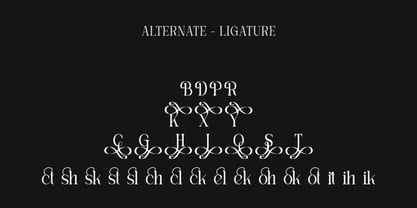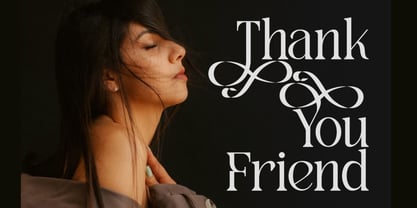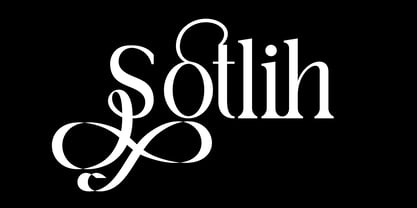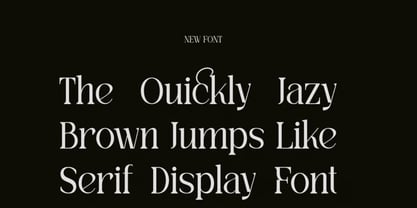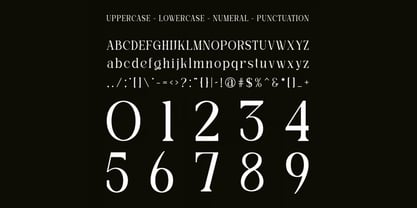
Sotlih
Die Schriftfamilie Sotlih wurde von Hasnat Khan entworfen und von Hasnat Studio veröffentlicht. Sotlih enthält 1 Stile. Mehr über diese Familie
Sotlih is a unique and versatile display font designed to make your typography stand out and communicate your message with confidence. Its distinctive character gives creative projects a strong visual presence, making it an excellent choice for designers looking for an eye-catching font for display typography, branding, entertainment graphics, and promotional designs.
With its bold personality and expressive appearance, Sotlih works beautifully across a variety of creative applications. Whether you're designing a movie title, poster, album cover, logo, label, gig artwork, or advertising campaign, this typeface adds character and visual impact to your composition.
Sotlih is especially suitable for prominent typography where the font itself becomes an important part of the design. Use it for headlines, titles, labels, promotional artwork, and other projects that need a distinctive and memorable typographic style.
Make your typography impossible to overlook with Sotlih—a unique display font designed for movie titles, posters, album covers, logos, labels, gigs, advertising, and creative branding. With expressive uppercase and lowercase characters plus numerals and punctuation, Sotlih brings a distinctive visual personality to every design.